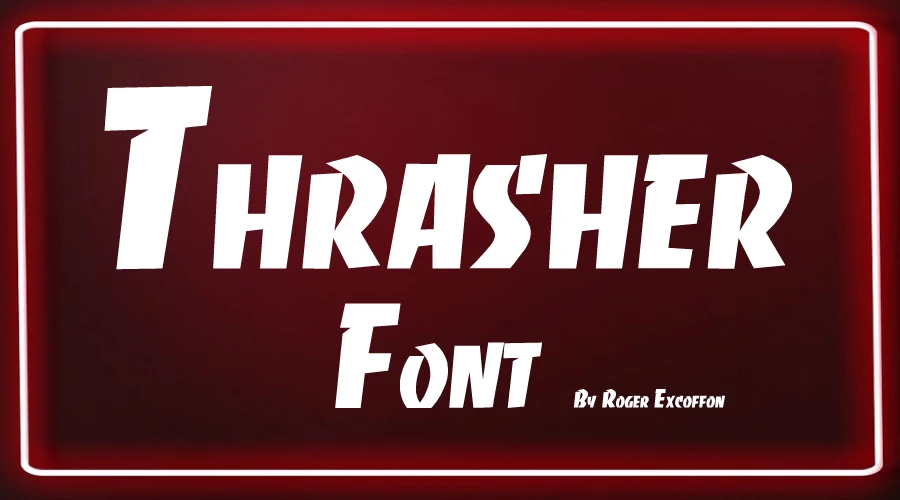
Many of you know the Thrasher font. You will certainly remember it if you were in skateboarding culture. It has a rich history and unique design because it was used in Thrasher Magazine. And today, we’re excited to take a deep dive into the Thrasher font, its origins, and how you can use our font generator to create your designs. Let’s get started.
What is Thrasher?
Thrasher is a monthly skateboarding magazine founded in 1981 by Kevin Thatcher, Eric Swenson, and Fausto Vitello. They also owned a skateboard truck company called Independent Truck Company. It is one of the most influential and iconic skate culture publications. It features articles, interviews, reviews, photography, and videos about skateboarding events, personalities, and trends.
It covers skateboarding culture and lifestyle with raw, edgy content. And the font logo has attracted many skateboarding fans and designers alike. Thrasher is one of the most influential and iconic skate publications. It has a loyal skater and non-skater fan base. It also has a website and a YouTube channel.
Thrasher also awards the title of “Skater of the Year” to one skater every year, based on their performance, style, and impact on skateboarding. The award is considered one of the most prestigious and respected honors in skateboarding.
About the Thrasher logo font
The magazine cover logo has become one of the most iconic and popular symbols. The logo consists of the word Thrasher in a bold and slanted font, with flames coming out of the letters. So, many people searched for what they used to create the Thrasher logo. The Thrasher logo uses a modified version of Banco. It is a decorative typeface designed by Roger Excoffon for the Fonderie Olive foundry in 1951. Banco is an all-caps font with thick strokes and sharp edges, giving it a strong and dynamic look.
Thrasher logo vs Banco font similarity example
The uppercase letters are bold and heavy. On the other hand, the lowercase letters are sans serif characters. The font didn’t come to the limelight until Bob Marley used it on the cover of his album Natty Dread in 1974. So it happened after 20 years of the font’s creation.
Banco font is a versatile font that can be used for various purposes, such as logos, headlines, banners, posters, flyers, stickers, labels, and more. It is especially suitable for creating designs that convey energy, movement, excitement, or rebellion. You can also combine it with other fonts or elements to create contrast and variety.
Thrasher Font
What type of font is Thrasher?
Ans: The font used for the magazine’s logo is Banco.
Is there any font similar to Thrasher Font in Google Fonts?
Ans: Bangers – Google Fonts is the most similar Google font to the Thrasher Font.